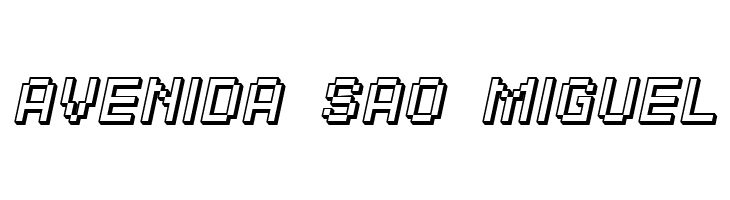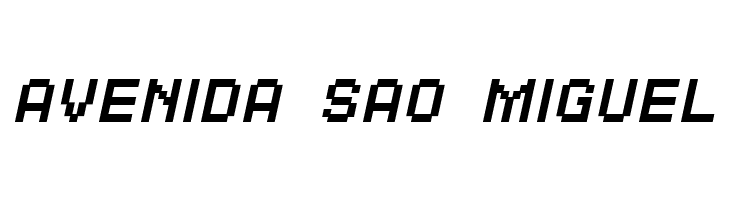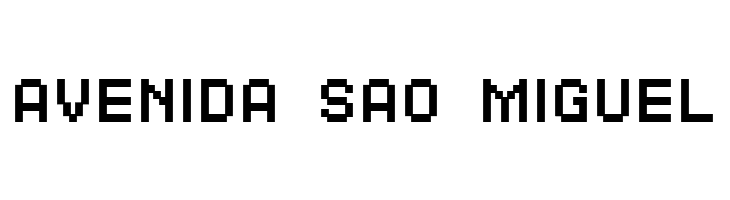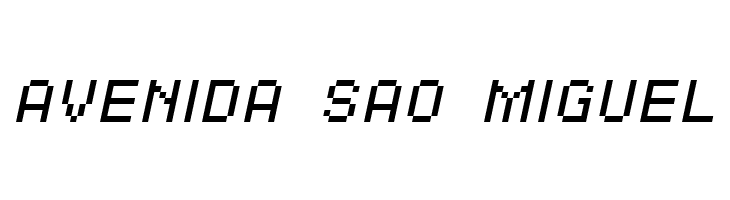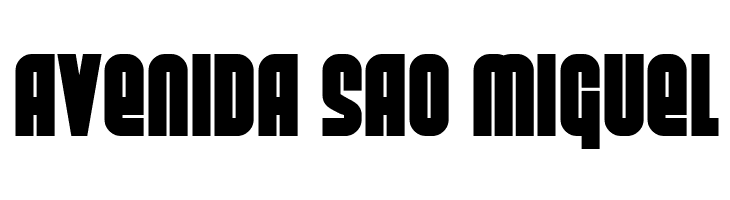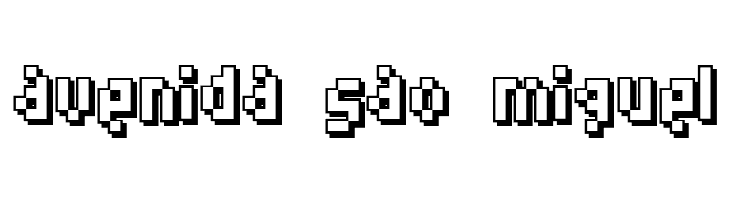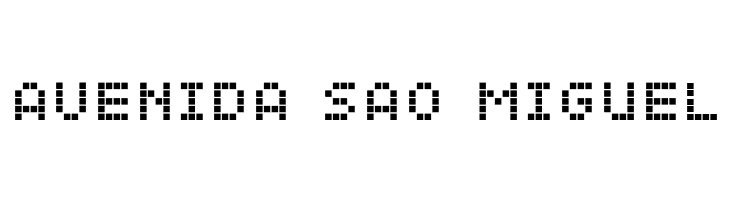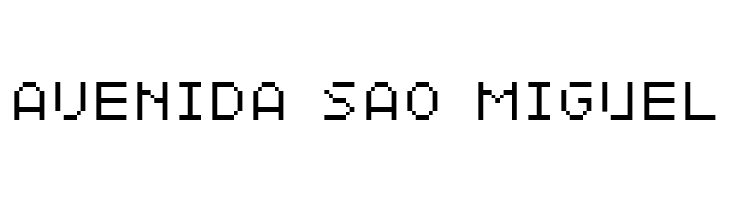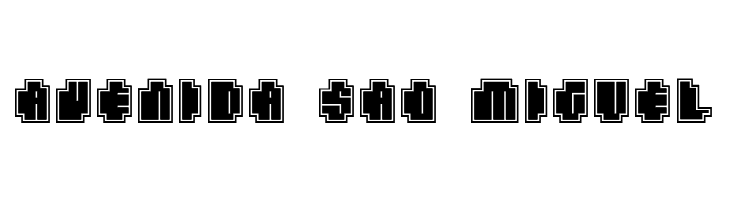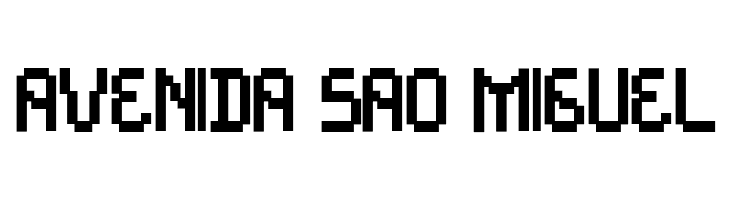
A pixelated, shaded, oblique font with a retro video game style.
A bold, pixelated, oblique font with a retro digital style.
A pixelated, oblique font with a retro digital aesthetic.
A bold, geometric font with a retro-futuristic style.
A bold, pixelated display font with a retro digital aesthetic.
A bold, pixelated font with a retro, 8-bit video game style.
A pixelated, geometric font reminiscent of retro digital displays.
A pixelated, grid-based font with a retro digital style.
A bold, italicized pixelated font with a retro digital aesthetic.
A bold, geometric font with a retro-futuristic style and layered outlines.
A playful, outlined font with a retro Y2K vibe and whimsical embellishments.
A pixelated, retro-style font with a digital, geometric design.
A pixelated, geometric font with a retro digital aesthetic.
A pixelated, retro font with a blocky, digital design.